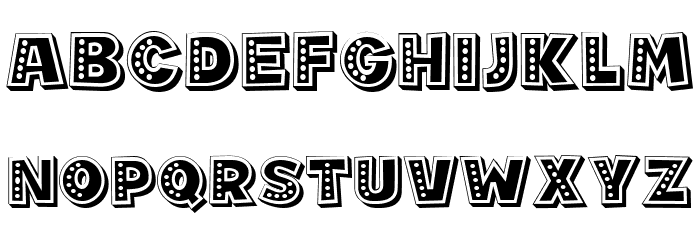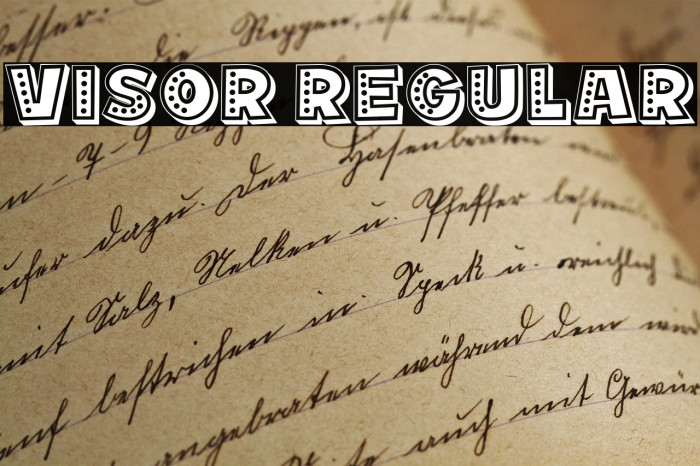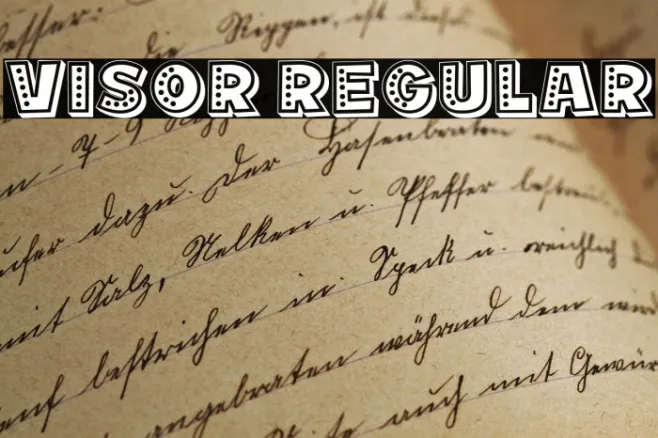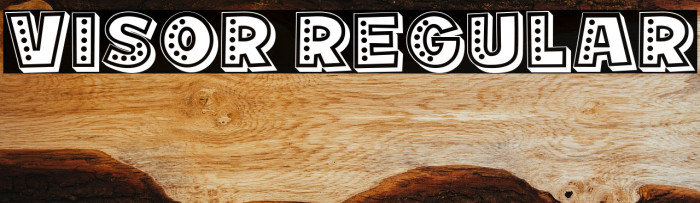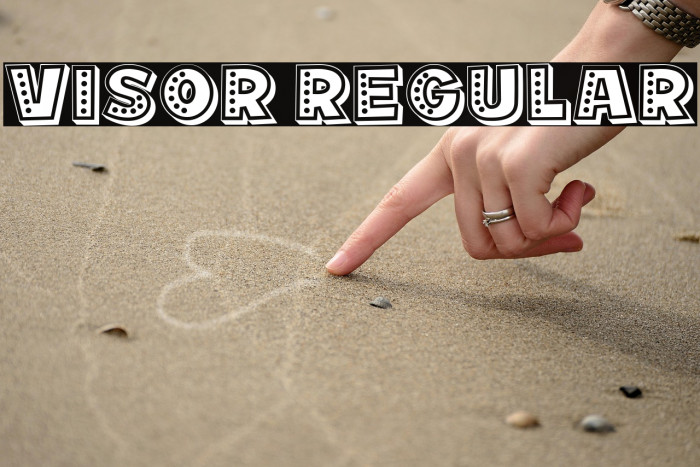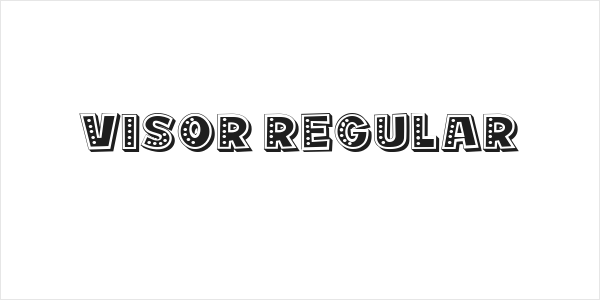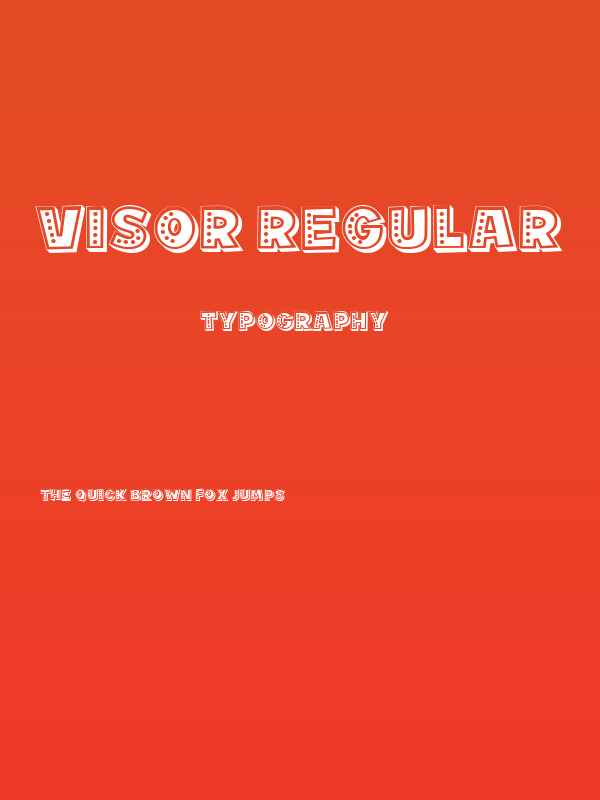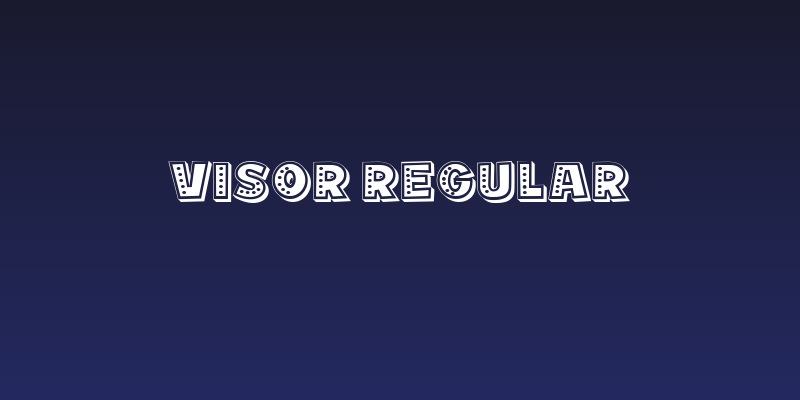
Visor Regular Font
Visor Regular Description
This font features a bold, decorative style with a playful and dynamic appearance. Each character is outlined with a thick black border, and the interior is filled with a pattern of dots, giving it a lively and eye-catching look. The letters are uppercase and have a slightly condensed form, which adds to their impactful presence. The font's design is reminiscent of marquee lights or vintage signage, making it ideal for projects that require a touch of retro flair. Its unique style is perfect for drawing attention and creating a memorable visual impression.
| Proposed Projects | Perfect for posters, event flyers, retro-themed branding, and any design needing a bold, eye-catching headline. |